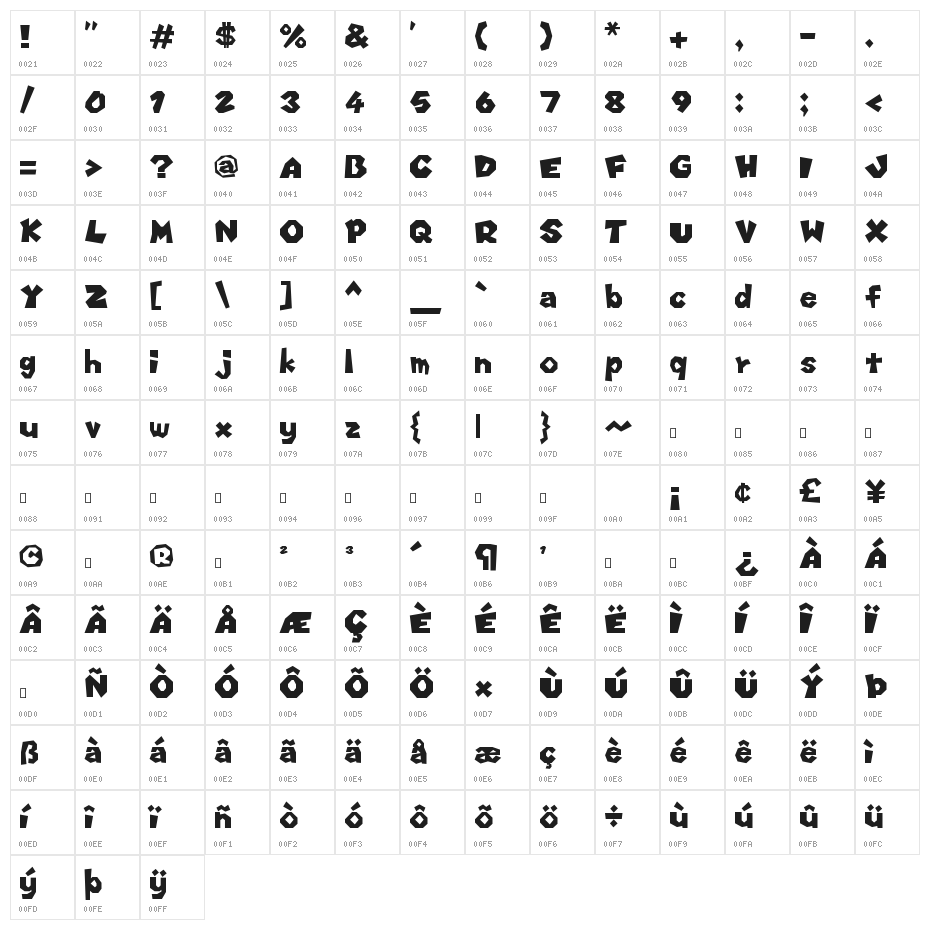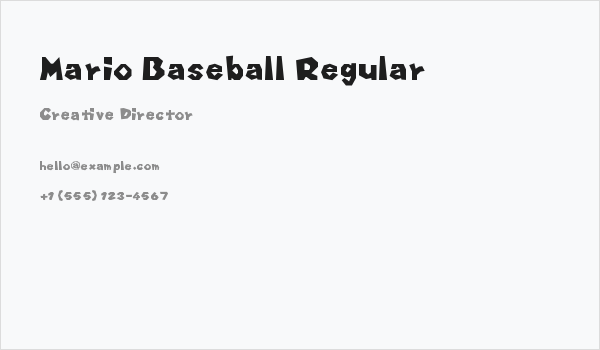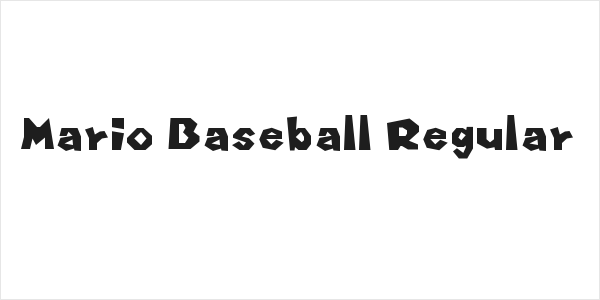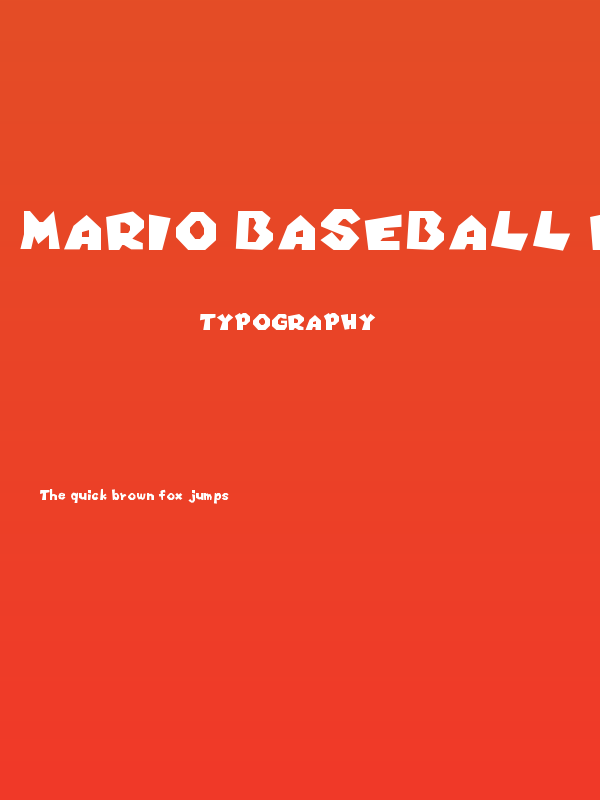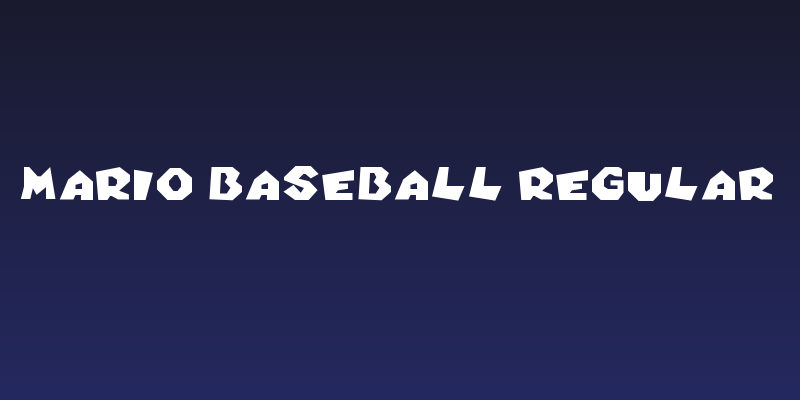
Mario Baseball Regular Font
Mario Baseball Regular Description
This font features a bold and playful design with a distinctive, angular style. The characters are crafted with irregular, jagged edges that give a dynamic and energetic feel. The uppercase and lowercase letters maintain a consistent style, with a slightly exaggerated form that enhances its whimsical nature. The numbers and special characters follow the same design principles, ensuring a cohesive look across all elements. This font's unique appearance makes it stand out, offering a sense of fun and creativity.
| Overall Style | Playful, Energetic, Creative |
| Use Case | Logos, Posters, Video Game Graphics |
| Proposed Projects | Ideal for video game graphics, children's book covers, playful branding, and creative posters. |